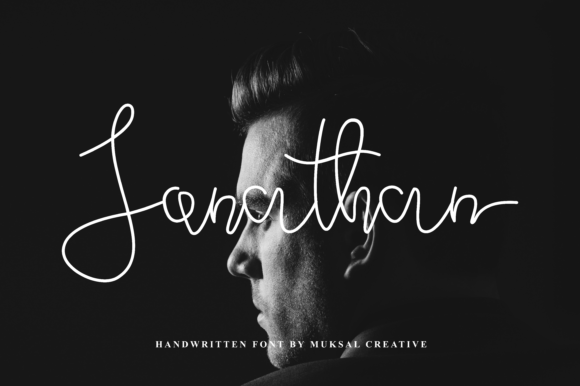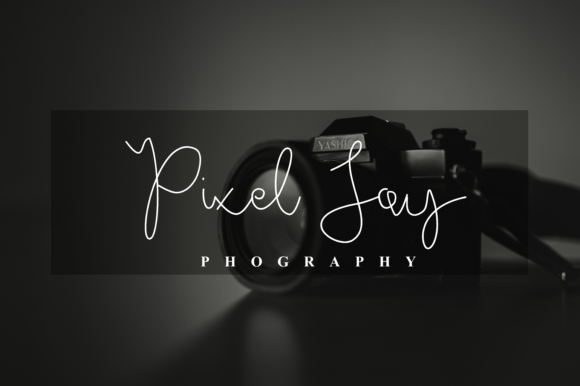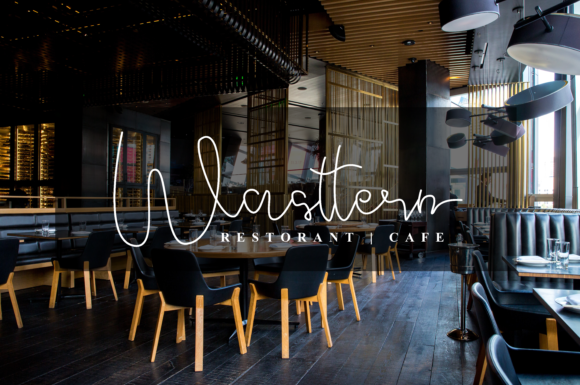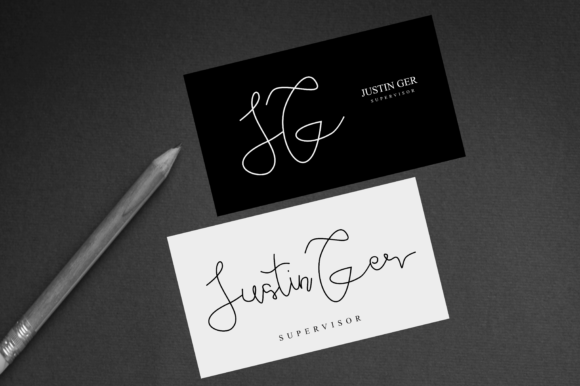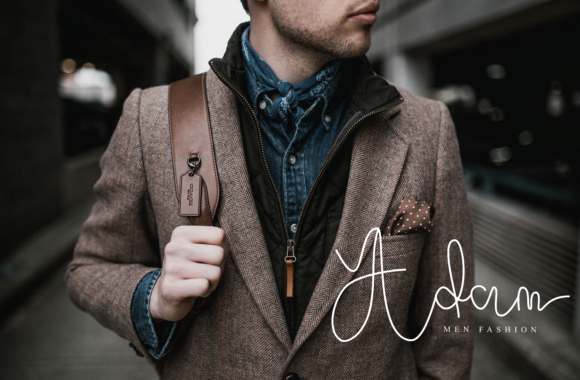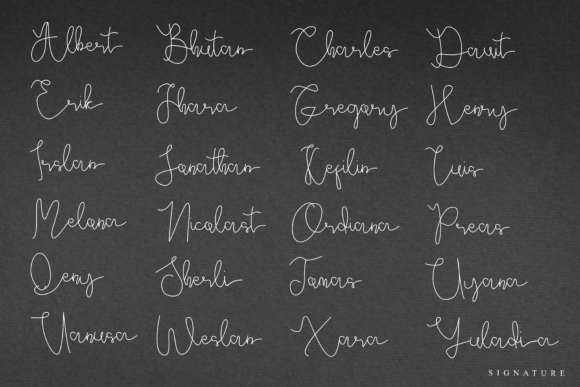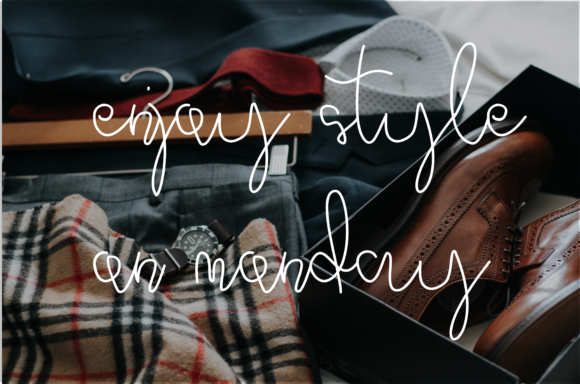
HomeScript FontsJonathan Font Script Fonts Jonathan Font FacebookXPinterestWhatsApp Jonathan Font Poster 2 Jonathan Font Poster 3 Jonathan Font Poster 4 Jonathan Font Poster 5 Jonathan Font Poster 6 Jonathan Font Poster 7 Jonathan Font Poster 8 About Jonathan Font Jonathan is script font with a sweet touch and flowing curves. Get inspired by its contemporary coolness! DOWNLOAD NOW People also explored Black Thorus Font Monogram Cadacia Floral Font Dalbert Font Sunshine Font Hello Subrim Font Bellindia Font Winter Christmas Font Farhan Font Vine Font 324 0 TagsJonathan Font Previous articleSelfies FontNext articleAlways Dream Big Font LEAVE A REPLY Cancel reply Comment: Please enter your comment! Name:* Please enter your name here Email:* You have entered an incorrect email address! Please enter your email address here Website: Save my name, email, and website in this browser for the next time I comment. Personal Use Free Rhetorical Personal Use Free Read more about this font Orchid Personal Use Free Read more about this font Black Jalal Personal Use Free Read more about this font Travelling Free Brush Personal Use Free Read more about this font BLOG Fonts That Capture the Spirit of New York City New York City is more than just a place—it’s an experience, a rhythm, a visual language... Using Fonts in Digital Marketing: Tips to Strengthen Your Brand Identity Best Fonts for T-Shirt Design – Top 2025 Picks Transform Your Website: Elevate Your Typography with 7 Best Web Font Generators